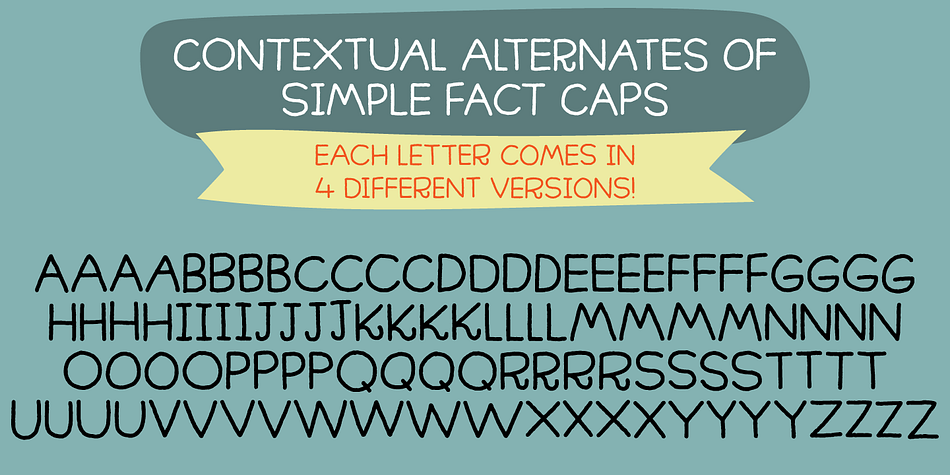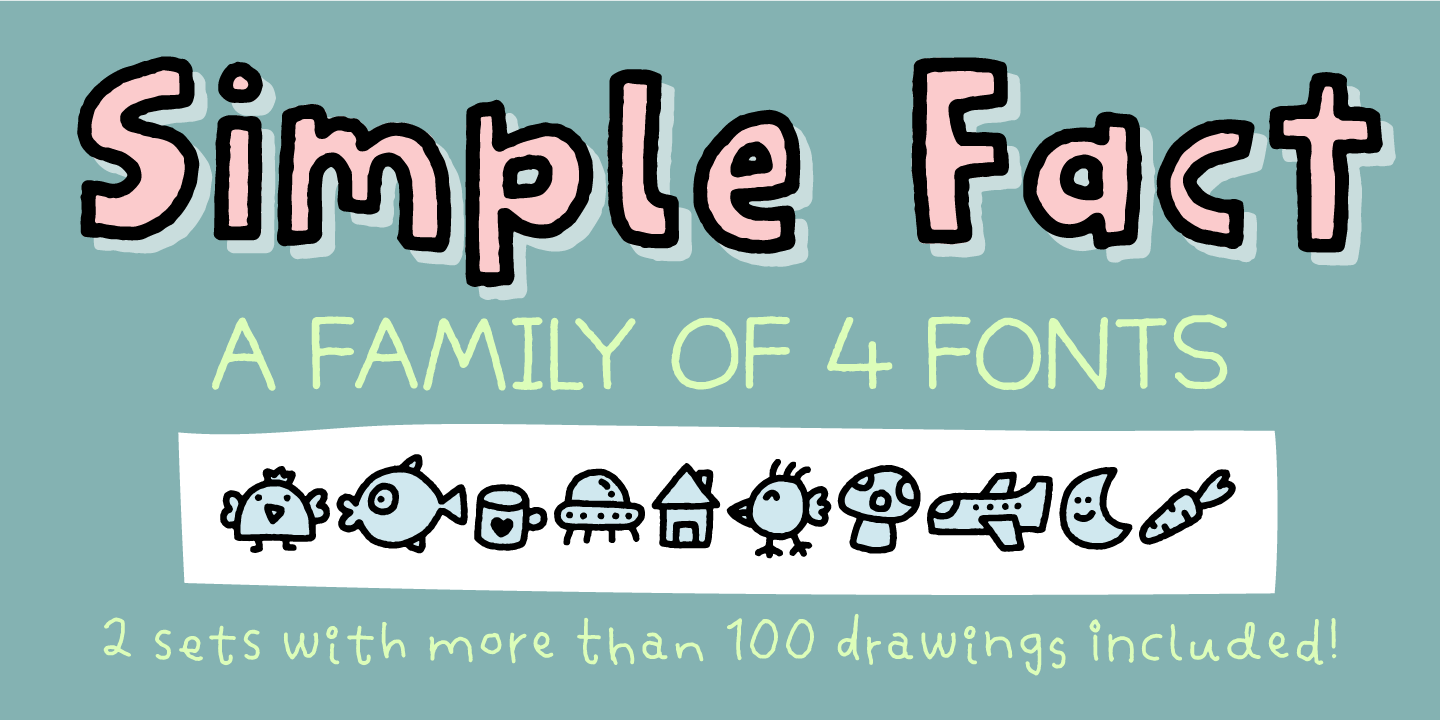
Simple Fact
Designed by Jakob Fischer, Simple Fact is a hand display, kids and dingbat font family. This typeface has seven styles and was published by Bogstav.
Simple Fact is a family of 4 fonts and 2 sets of drawings.
All fonts and drawing was made with the same inky pen, leaving a slightly blurred and rugged look.